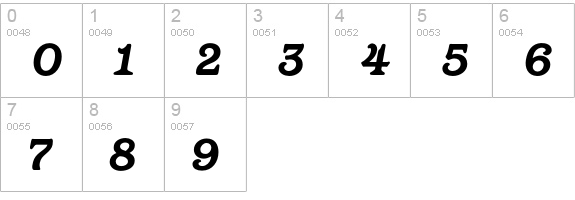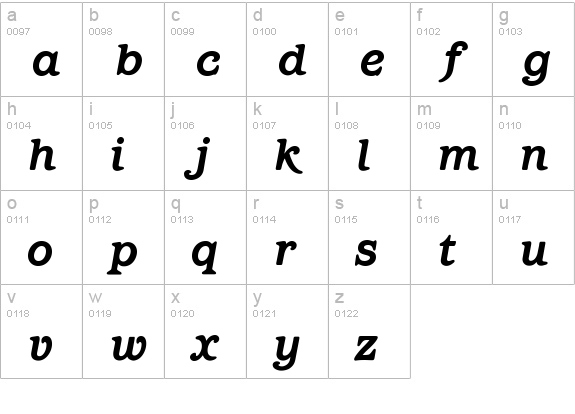
BarcelonaBoldItalic Font Details
BarcelonaBoldItalic font is a stunning display typeface that exudes elegance and sophistication. Its bold and italic design adds a touch of flair to any project, making it perfect for headings, titles, and other attention-grabbing text. The sleek, modern look of BarcelonaBoldItalic font makes it an ideal choice for branding, logos, packaging, and more. Best of all, BarcelonaBoldItalic font is available for free download at FontsMarket.com. This means you can easily access this high-quality font without having to worry about any additional costs. Don't miss out on the opportunity to enhance your designs with the striking BarcelonaBoldItalic font - download it today and take your projects to the next level!